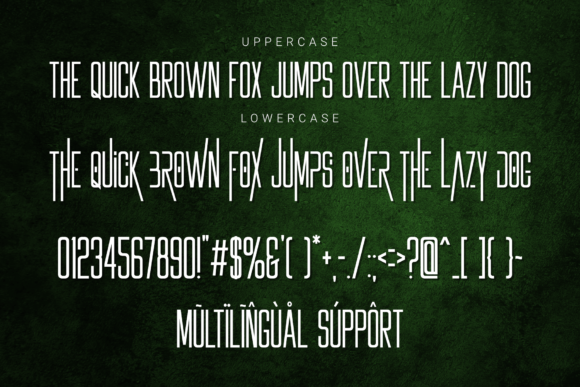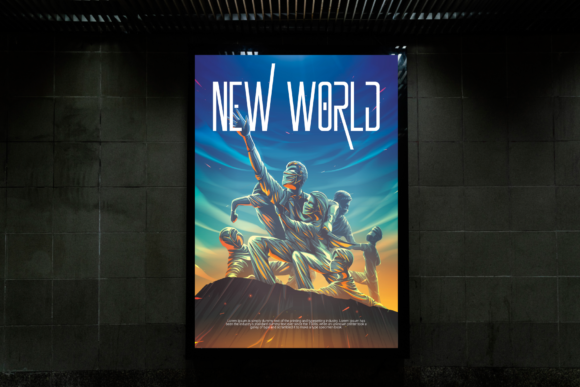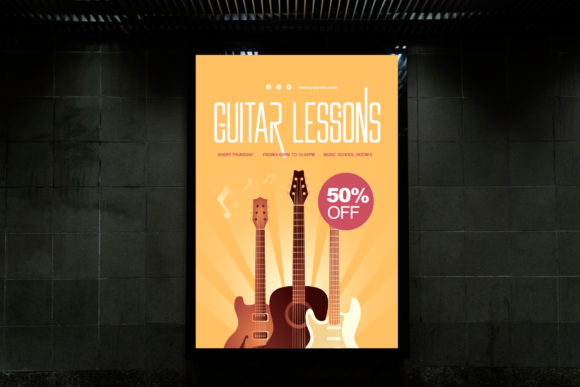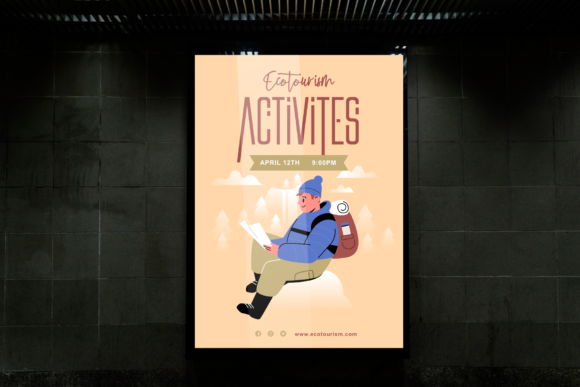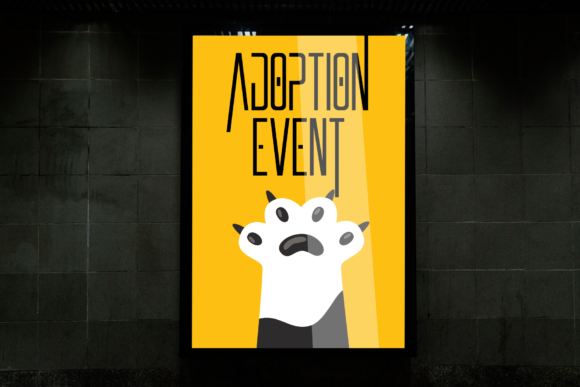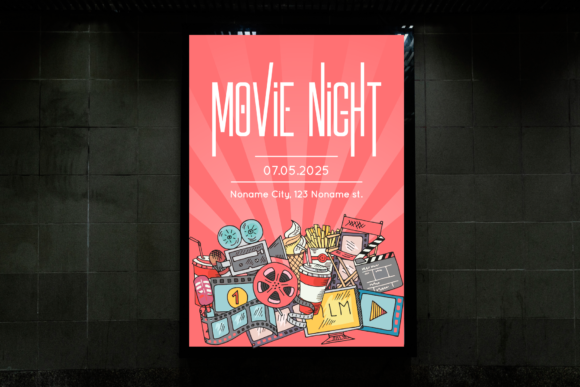
Unlock Your Design Potential with Easy Headline Font
Have you ever been in the middle of a design project, and suddenly, you’re stuck on finding the perfect font? I recall a particularly frustrating experience while working on a branding project for a trendy new cafe. My client wanted a title that screamed elegance and sophistication, but I just couldn’t find the right fit. That was until I stumbled upon the Easy Headline font. If you’re ready to elevate your designs and make them rock the world, you’re in the right place!
A Personal Review of Easy Headline
I’m excited to share my honest review of the Easy Headline font, and what I love about it:
- ✨ Unique and Cool Shapes: The characters in this font are made with unique and cool shapes that instantly grab attention.
- ✅ High Versatility: It’s perfect for any professional branding project, including titles, movie titles, event titles, social media titles, book cover titles, poster titles, and more.
- 💼 Classy and Elegant: This font screams class and elegance, making it perfect for designs that need a touch of sophistication.
While Easy Headline is an amazing font, there are a few minor quirks to be aware of:
- 🤔 Limited Use in Body Text: Due to its unique design, it’s not ideal for body text. It’s best used for titles and headings.
- ⚠️ Requires Attention to Kerning: As with any font, especially those with unique shapes, pay attention to kerning to ensure it looks its best.
The Story Behind Easy Headline
Easy Headline was crafted with the designer in mind. Its creator aimed to produce a font that was both elegant and versatile, capable of elevating any design project. Inspired by classic typography and modern trends, Easy Headline brings a fresh perspective to the world of fonts.
| Font Name | Easy Headline Font |
| Author | DUMADI |
| What makes Easy Headline unique? | Its characters are made with unique and cool shapes, making it perfect for titles and headings that need to stand out. |
| Does Easy Headline support OpenType features? | Yes, Easy Headline supports OpenType features, allowing for a wide range of stylistic alternates and glyphs. |
| Is Easy Headline suitable for body text? | No, due to its unique design, it’s best used for titles and headings rather than body text. |
Easy Headline is more than just a font; it’s a design statement. With its elegant and versatile characters, it’s ready to elevate your projects and make them rock the world. Whether you’re a seasoned designer or a creative hobbyist, Easy Headline is a fantastic addition to your font library.